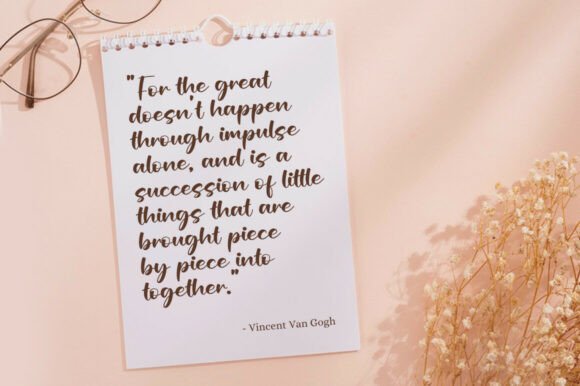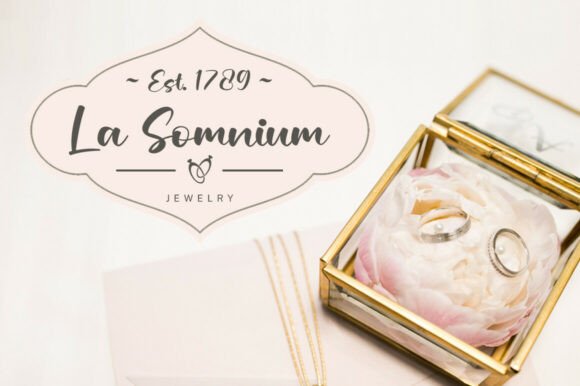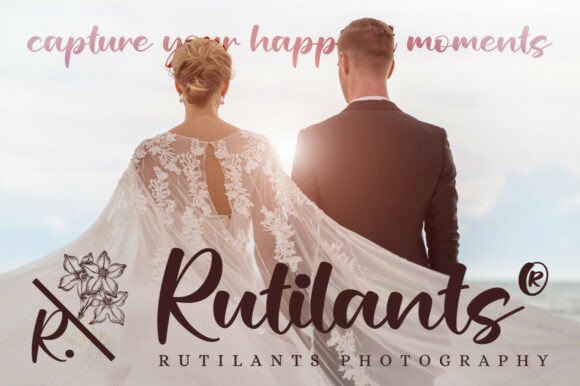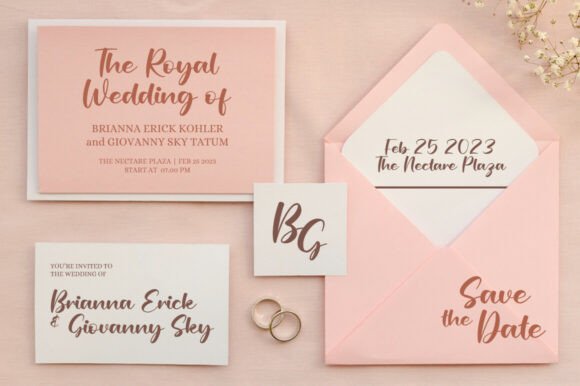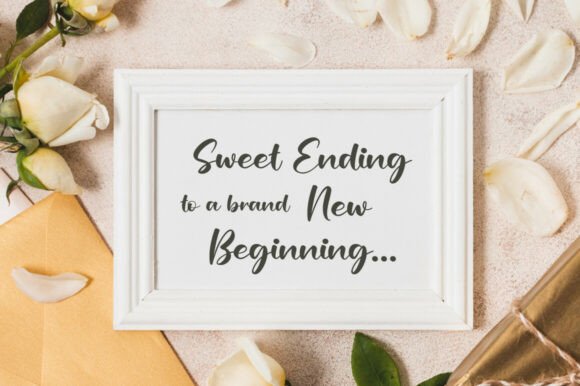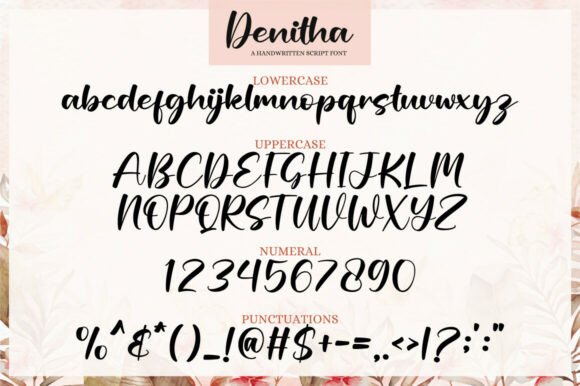
The Denitha Font: A Timeless Choice for Creative Projects
I’ll never forget the struggle I faced while working on a branding project for a small business. My client wanted a font that was both elegant and playful, but I just couldn’t seem to find the right fit. That was until I stumbled upon the Denitha font. It was love at first sight! 💕 The beautiful, handwritten curves and lines instantly captured the essence of my client’s brand, and I knew I had found the perfect match.
An Honest Review of Denitha Font
What I Love About Denitha Font
- ✨ Timeless and versatile: Denitha font is a lovely and timeless handwritten font that can be used for a wide range of creative projects, from eye-catching logos to branding and quotes.
- ✅ Elegant and sophisticated: The font’s beautiful curves and lines give it an elegant and sophisticated feel that’s perfect for high-end branding and design projects.
- 💫 Easy to read: Despite its elegant appearance, Denitha font is surprisingly easy to read, making it a great choice for body text and quotes.
While Denitha font is an amazing choice for many projects, there are a few quirks to keep in mind. 🤔 For example, some users have reported issues with kerning, particularly when using the font at smaller sizes. ⚠️ Additionally, the font may not be the best choice for very long blocks of text, as it can be a bit on the elegant side.
The Story Behind Denitha Font
Denitha font was designed by a talented typographer who wanted to create a font that was both elegant and approachable. The font’s beautiful curves and lines are inspired by traditional handwriting, but with a modern twist. 💫 While the designer’s exact inspiration may be a mystery, it’s clear that Denitha font has been crafted with love and care.
| Font Name | Denitha Font |
| Author | Nirmala Creative |
| What is Denitha font best used for? | Denitha font is perfect for creating eye-catching logos, branding, and quotes. Its elegant and sophisticated feel makes it a great choice for high-end design projects. |
| Is Denitha font easy to read? | Yes, Denitha font is surprisingly easy to read, making it a great choice for body text and quotes. |